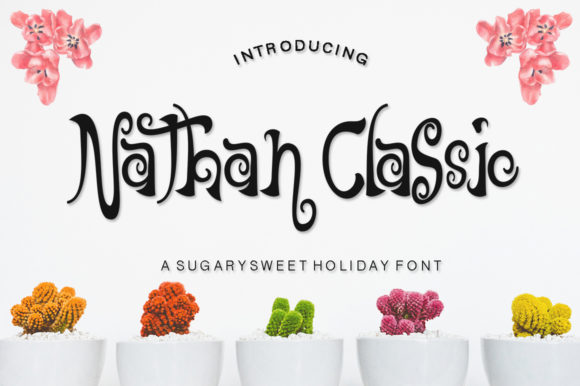
Unleash the Enchanting Elegance of Nathan Classic: A Script Font of Exquisite Beauty
Embrace the timeless allure of Nathan Classic, an extraordinary script font that merges elegance and sweetness into a symphony of visual delight. Created by the talented artisans at IM Studio, this script font exudes a charm that is both captivating and unforgettable.
Nathan Classic's graceful lines and elegant curves evoke a sense of sophistication and refinement that is perfect for adding a touch of class to any design project. Its delicate strokes and sweeping flourishes create a captivating aesthetic that is sure to leave a lasting impression.
Beyond its visual appeal, Nathan Classic is also remarkably versatile, effortlessly adapting to a wide range of design styles and applications. Whether you're creating wedding invitations, branding materials, social media graphics, or website designs, Nathan Classic will elevate your designs to new heights.
Immerse yourself in the world of Nathan Classic and discover a font that will transform your creative projects. Experience the beauty of its flowing lines, the charm of its delicate details, and the timeless allure that it brings to every design.
With Nathan Classic, you'll have the power to create designs that speak to the heart, leaving a lasting impression on your audience. Its versatility and elegance make it the perfect choice for designers seeking to add a touch of sophistication and charm to their work.